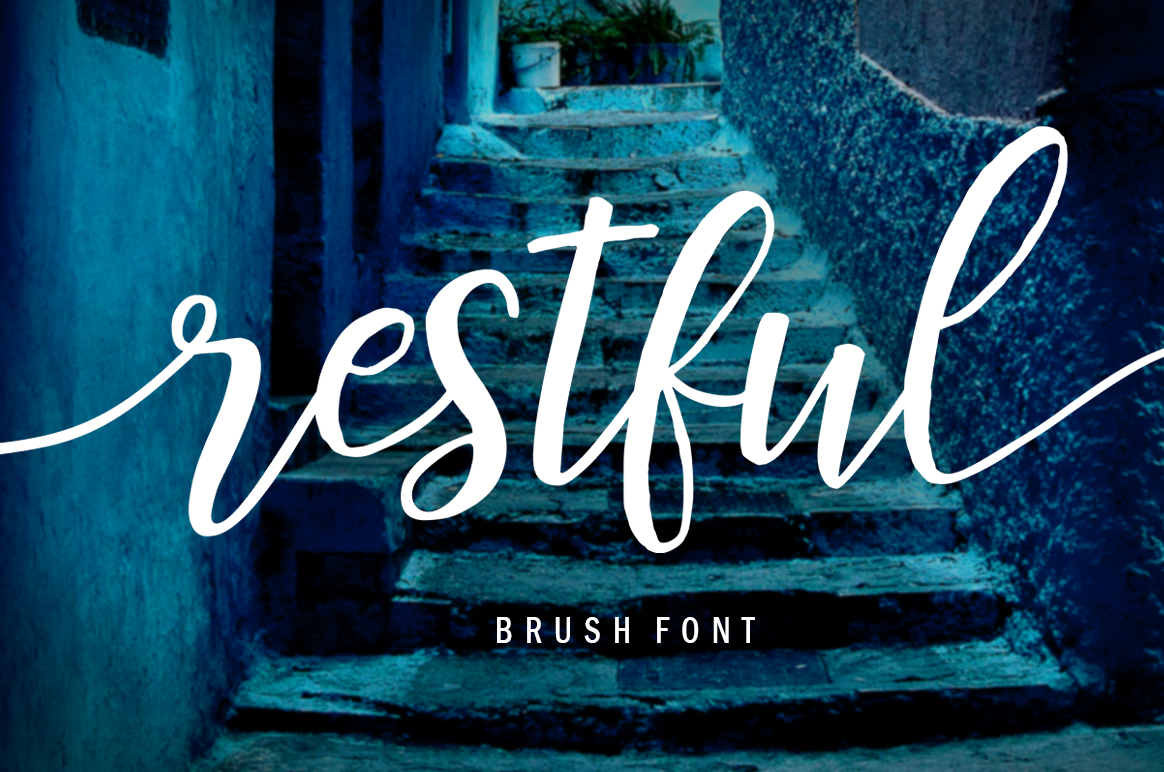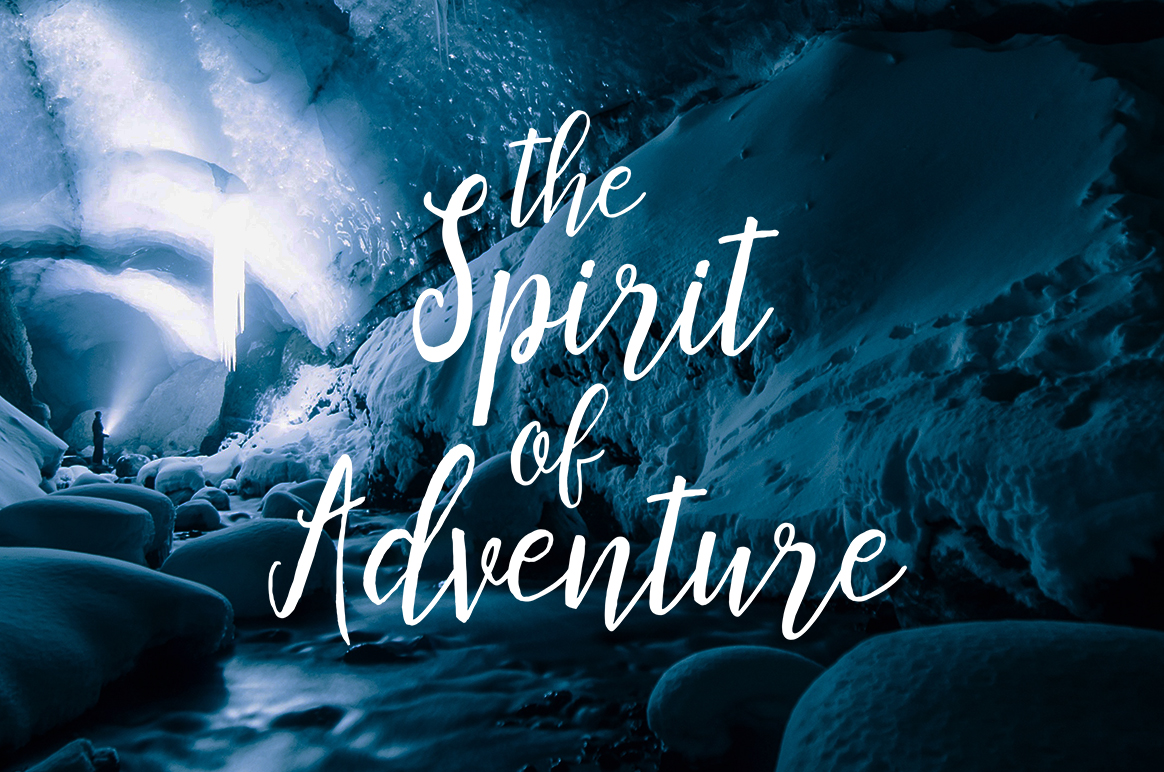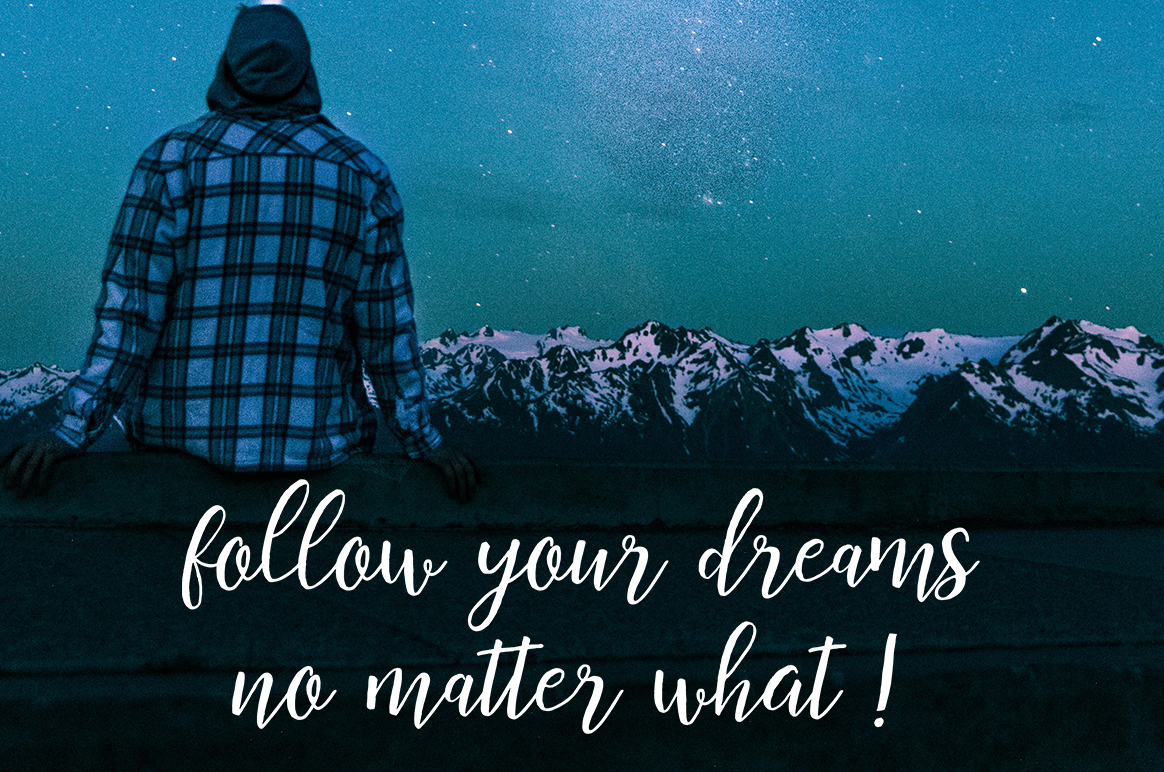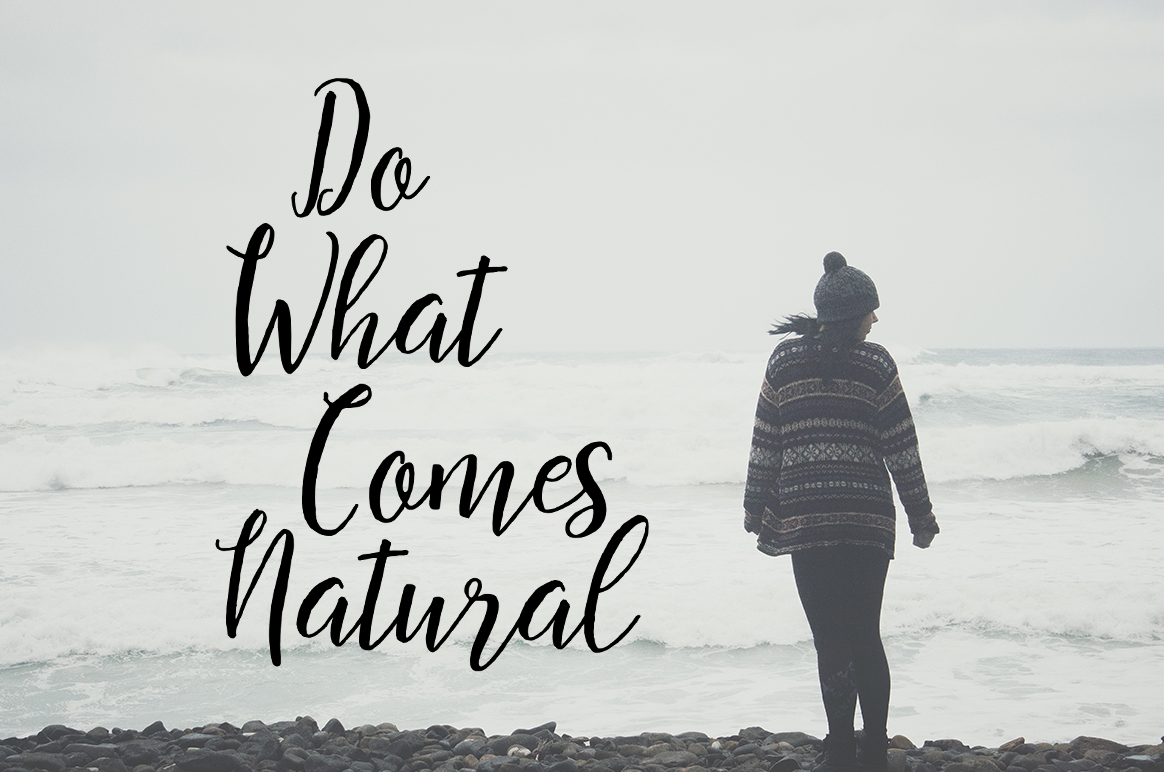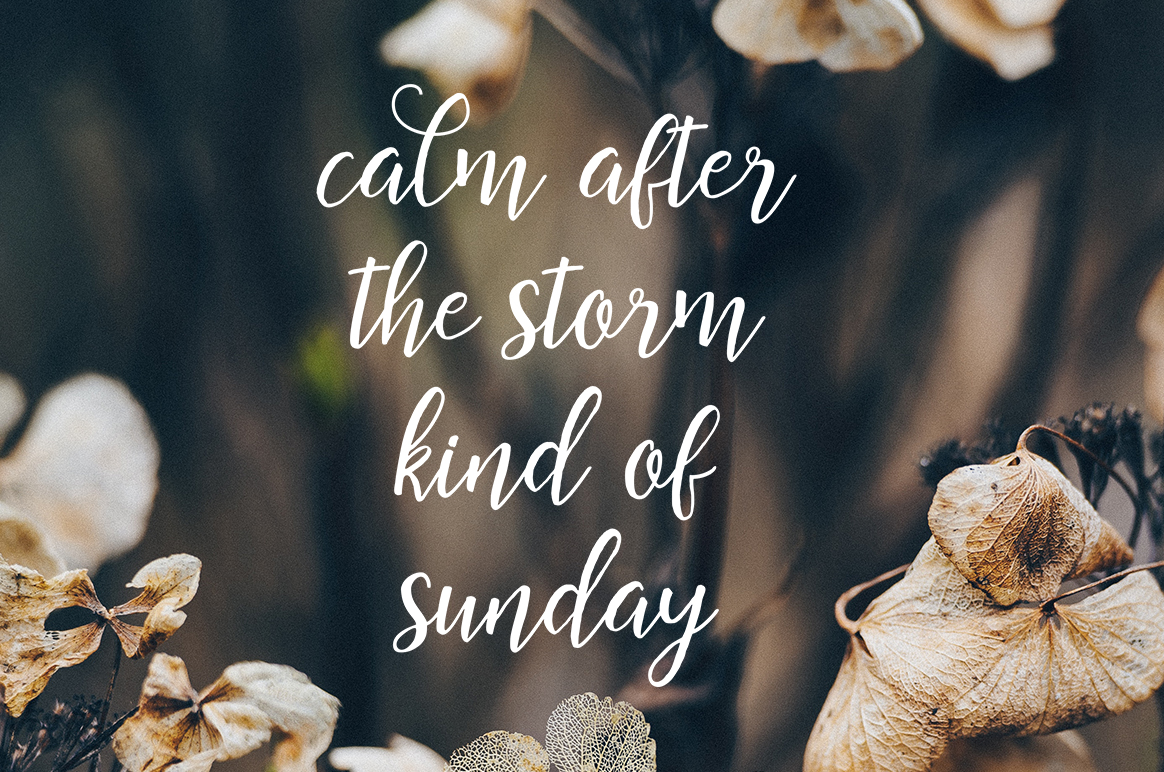
Restful Font
About Restful Font
Restful is a vibrant, free-flowing script font, perfect for adding a dynamic touch to your designs. With bold strokes and an irregular baseline, Restful is a great way to amp up and add charm to your projects.